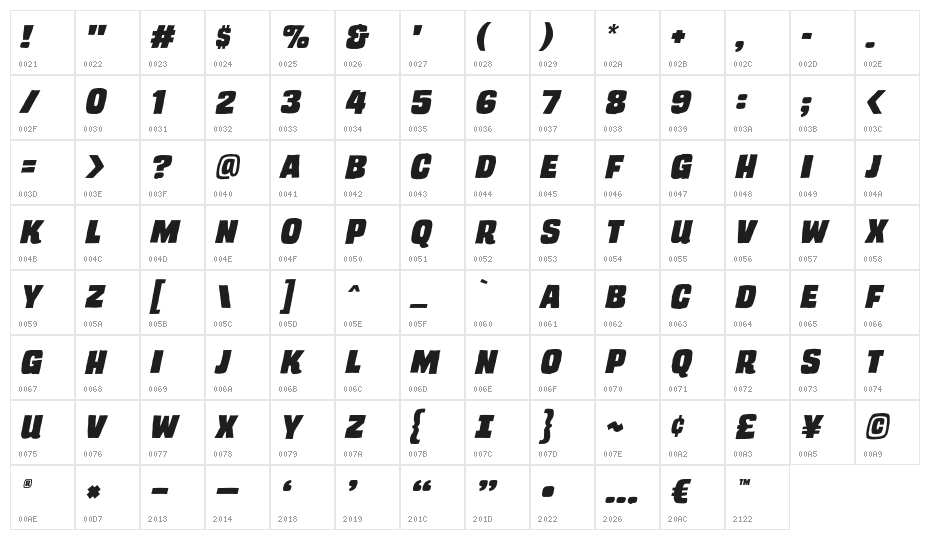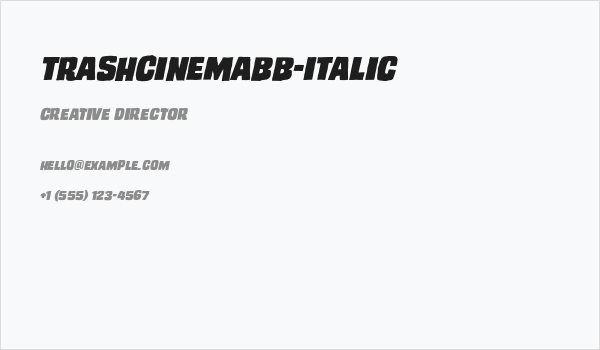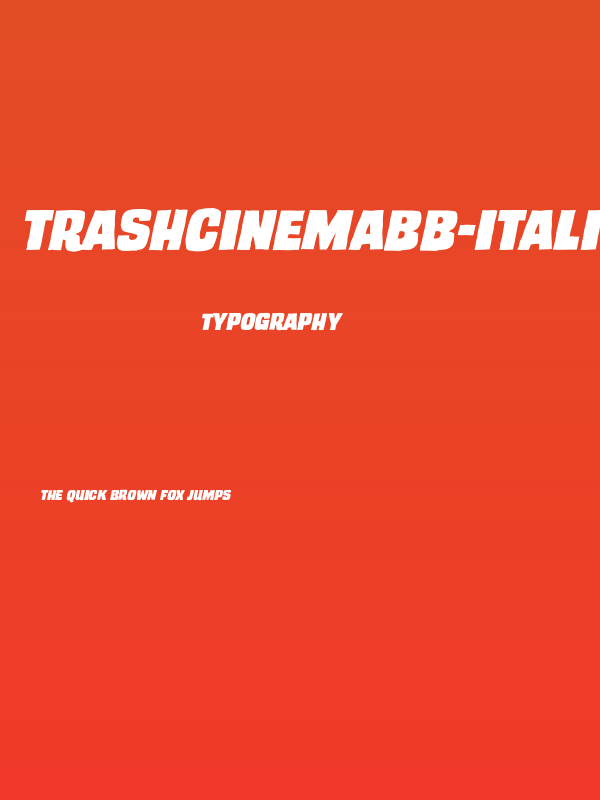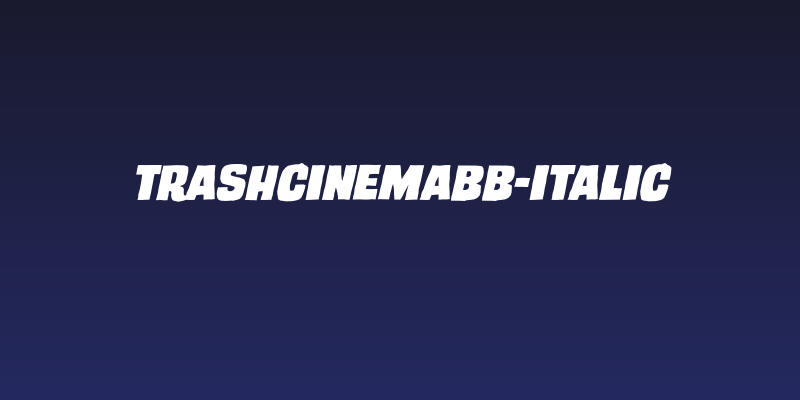
TrashCinemaBB-Italic Font
TrashCinemaBB-Italic Description
This font features a bold and dynamic style with a strong italic slant, giving it a sense of motion and energy. The characters are thick and robust, with a slightly condensed appearance that enhances their impact. The uppercase and lowercase letters maintain a consistent weight, providing a cohesive look across the alphabet. The numbers and special characters are equally bold, ensuring they stand out in any design. The overall aesthetic is reminiscent of vintage cinema posters, making it ideal for projects that require a retro or dramatic flair.
| Proposed Projects | Ideal for movie posters, retro-themed designs, branding, and advertising that requires a bold statement. |